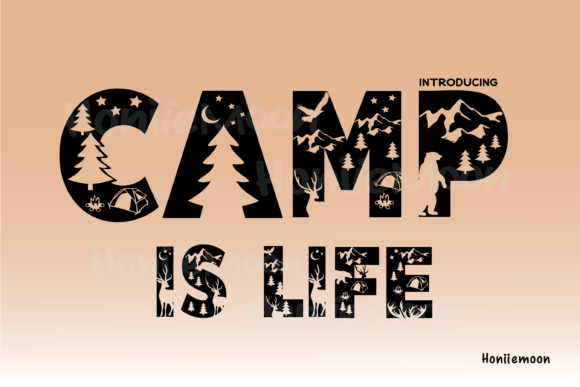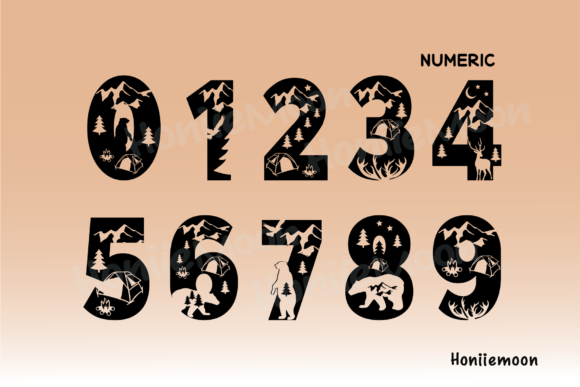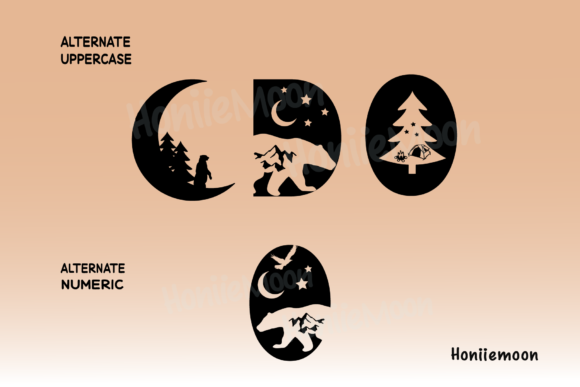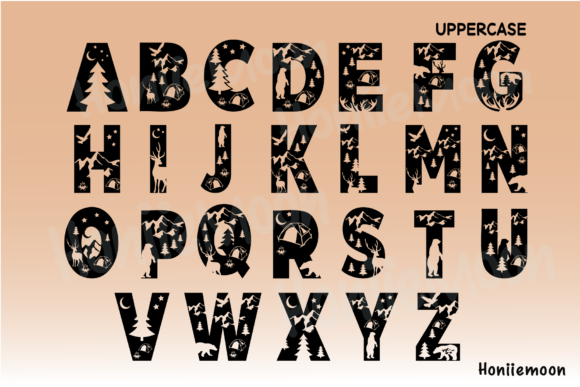
Camp is Life Font
About the Camp is Life Font
Welcome to the world of Camp is Life Font, a typeface that will inspire your next great project. Camp Is Life is a cool, original and fun decorative font. It looks both cute and authentic and it will enhance each of your designs. The only limit is your imagination.
Camp Is Life’s playful, slightly quirky character makes it ideal for headlines, short slogans, and branding elements where a fun, approachable feel is desired. It works exceptionally well in children’s book design, playful packaging, or for brands targeting a young, adventurous audience. Avoid using it for body copy or UI elements; its decorative nature makes it less legible in extended text.
This font pairs well with clean sans-serifs like Open Sans for a balanced contrast, or with a more geometric sans-serif such as Montserrat to emphasize its hand-drawn charm. For a more whimsical feel, consider pairing it with a flowing script font, but use it sparingly to maintain readability.
Its overall personality is best described as friendly and bold, with a touch of handcrafted authenticity. The font’s informal energy is perfect for projects that need a touch of youthful excitement and approachable charm.
Camp is Life Font Usage Examples
Camp is Life Font Example